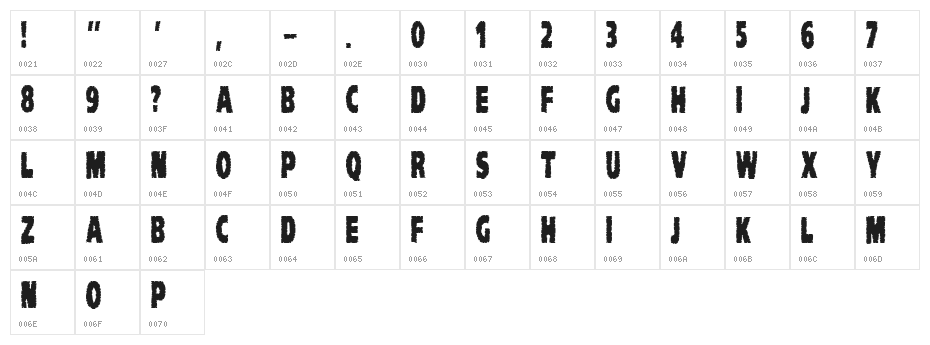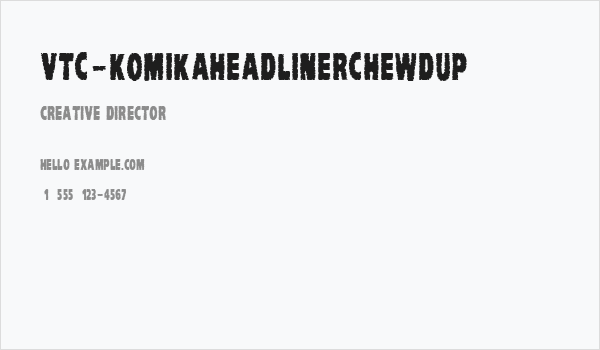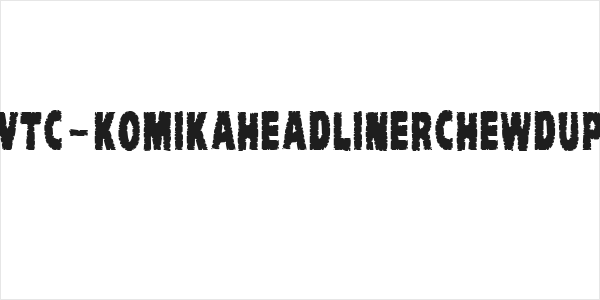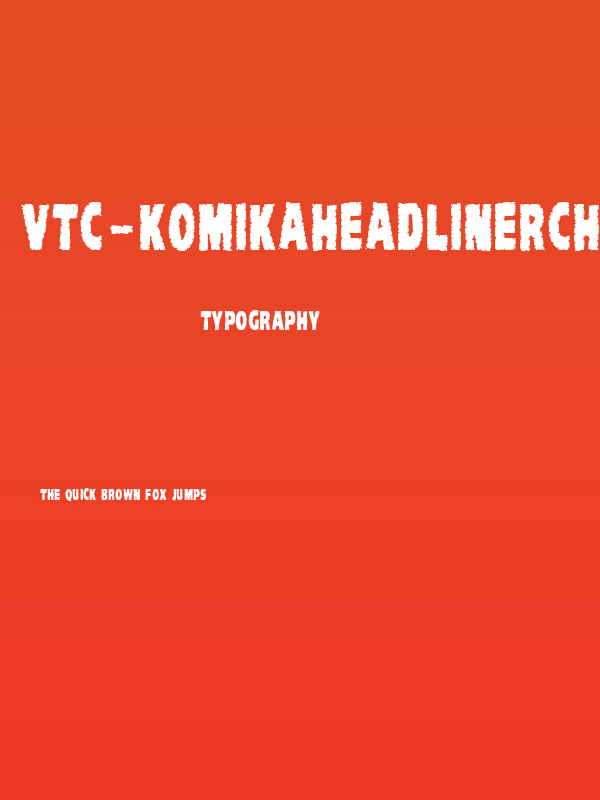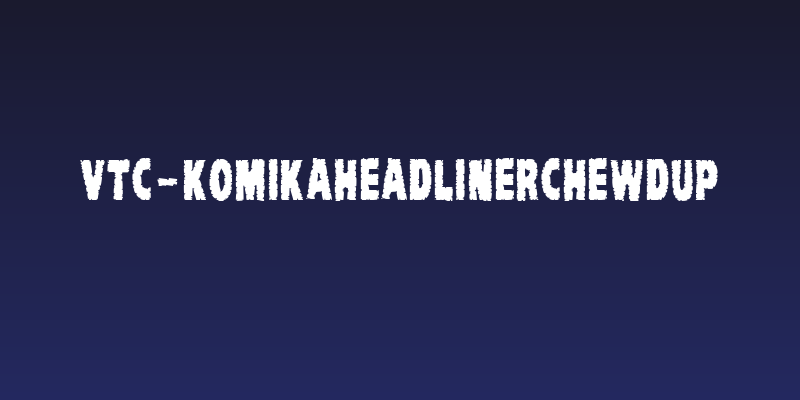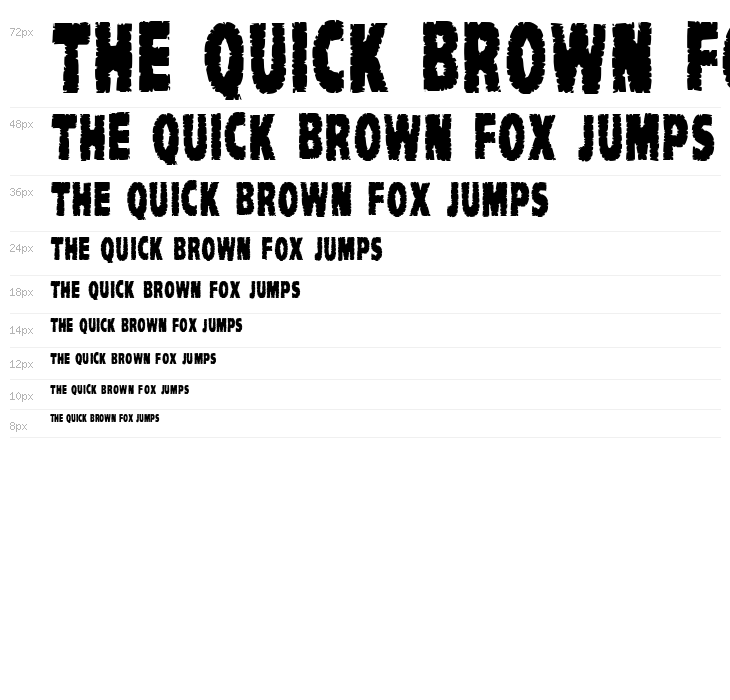
VTC-KomikaHeadLinerChewdUp Font
VTC-KomikaHeadLinerChewdUp Description
This font features a bold and rugged design with a distressed, textured appearance that gives it a unique, edgy feel. The characters are bold and heavily weighted, with a rough, uneven outline that suggests a hand-crafted or worn look. The uppercase and lowercase letters maintain a consistent style, with the numbers and special characters following suit. This font's distinct style makes it stand out, perfect for projects that require a strong visual impact. The irregular edges and bold strokes create a sense of movement and energy, making it ideal for dynamic and creative designs.
| Proposed Projects | Ideal for posters, album covers, branding for edgy products, or any project needing a bold, impactful look. |